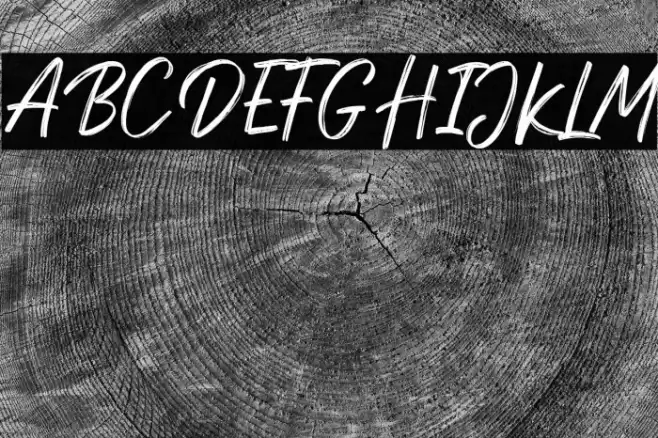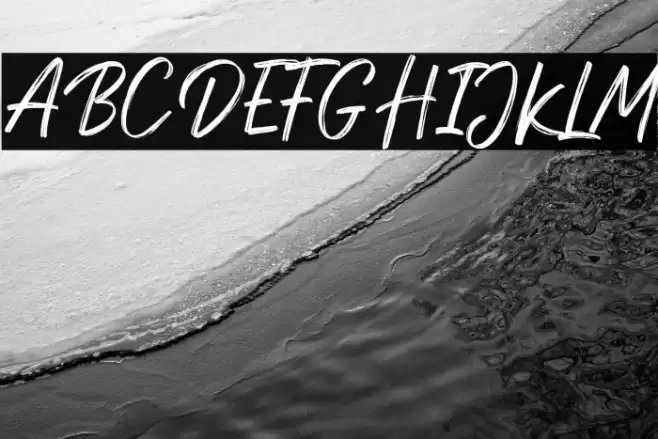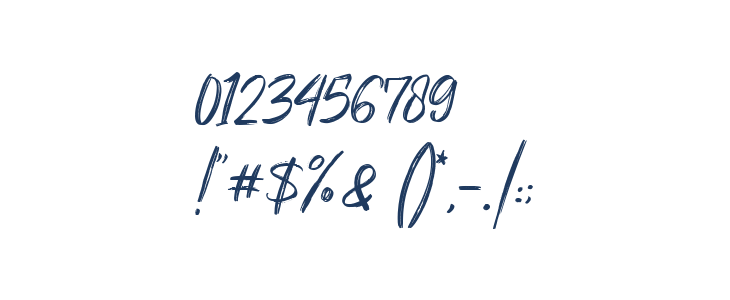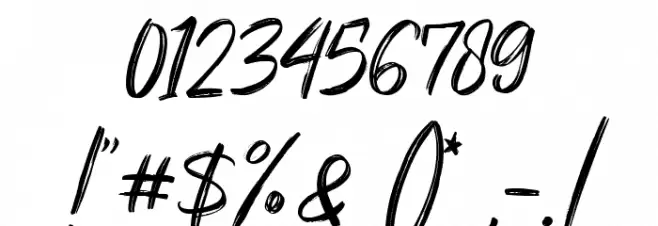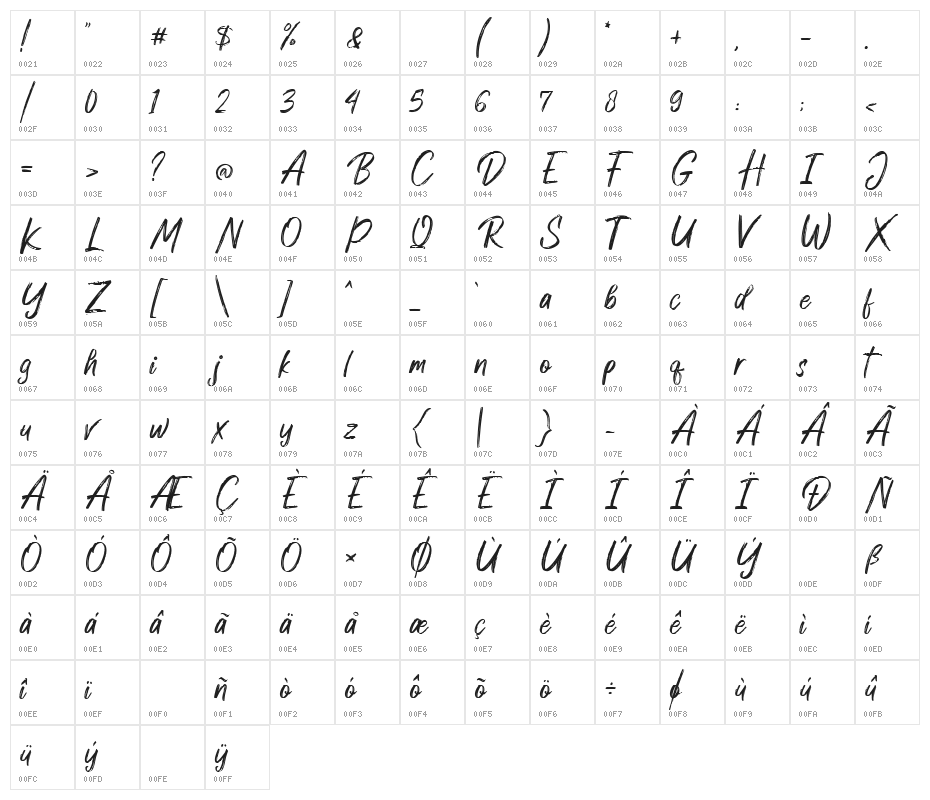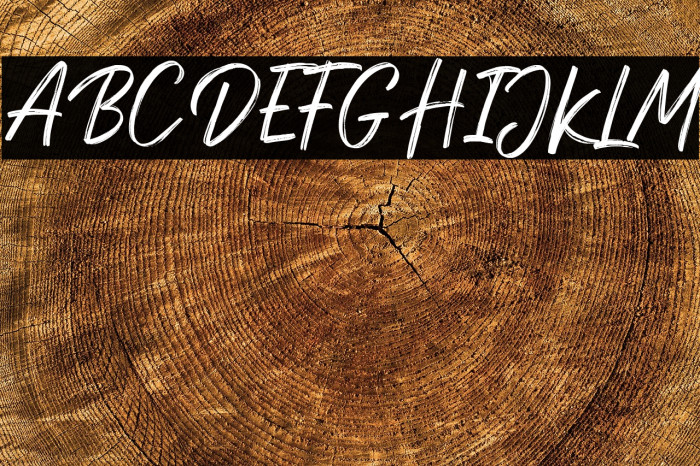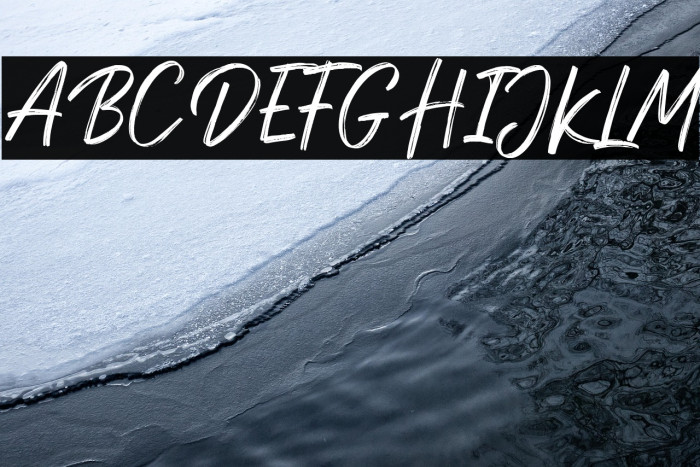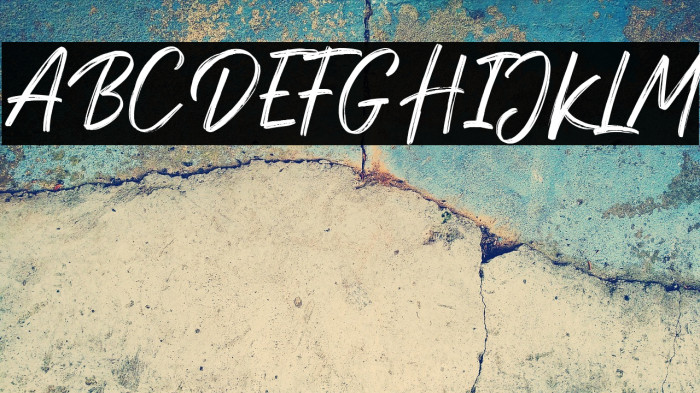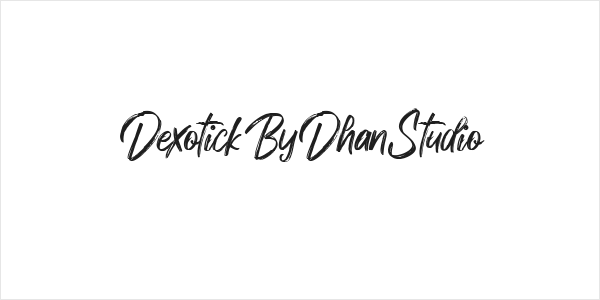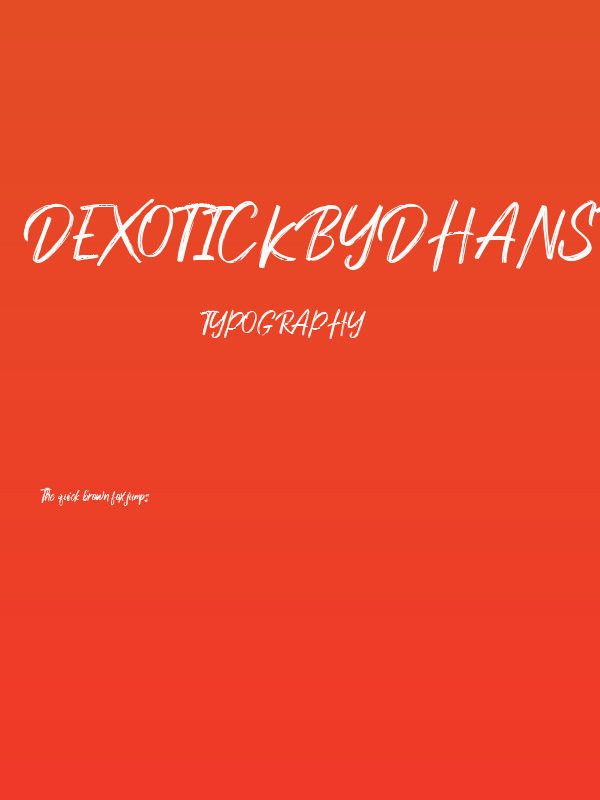
DexotickByDhanStudio Font
DexotickByDhanStudio Description
This font features a dynamic and energetic script style with a hand-drawn appearance. The letters are characterized by their fluid, sweeping strokes and slight slant, giving them a sense of motion and liveliness. The uppercase letters are bold and prominent, while the lowercase letters maintain a consistent flow, enhancing readability. The numerals and special characters complement the overall style, maintaining the same energetic and artistic flair. This font is well-suited for projects that require a personal touch or a creative, informal vibe.
A dynamic, hand-drawn script font with energetic strokes and a lively appearance from Uncategorized fonts.
- Proposed Projects: Ideal for branding, invitations, greeting cards, and creative projects that require a personal, artistic touch.
- Use Case: Logos, Headlines, Invitations